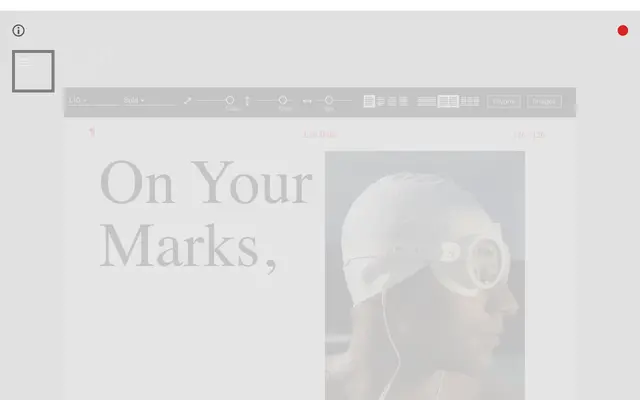
A typeface from Or Type with insufficient public specimen data available at the time of retrieval.
The name and foundry context suggest a modernist grotesque or geometric sans-serif, though the page content is insufficient to confirm precise subcategory with certainty.